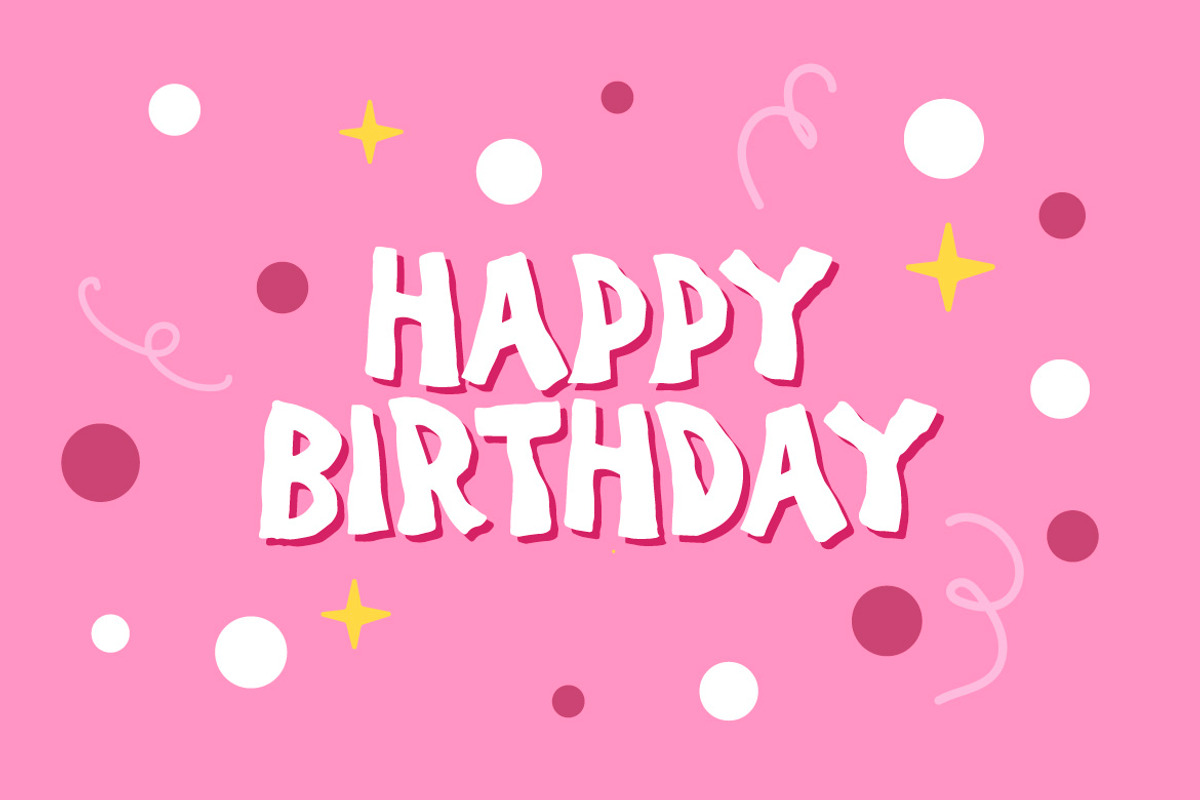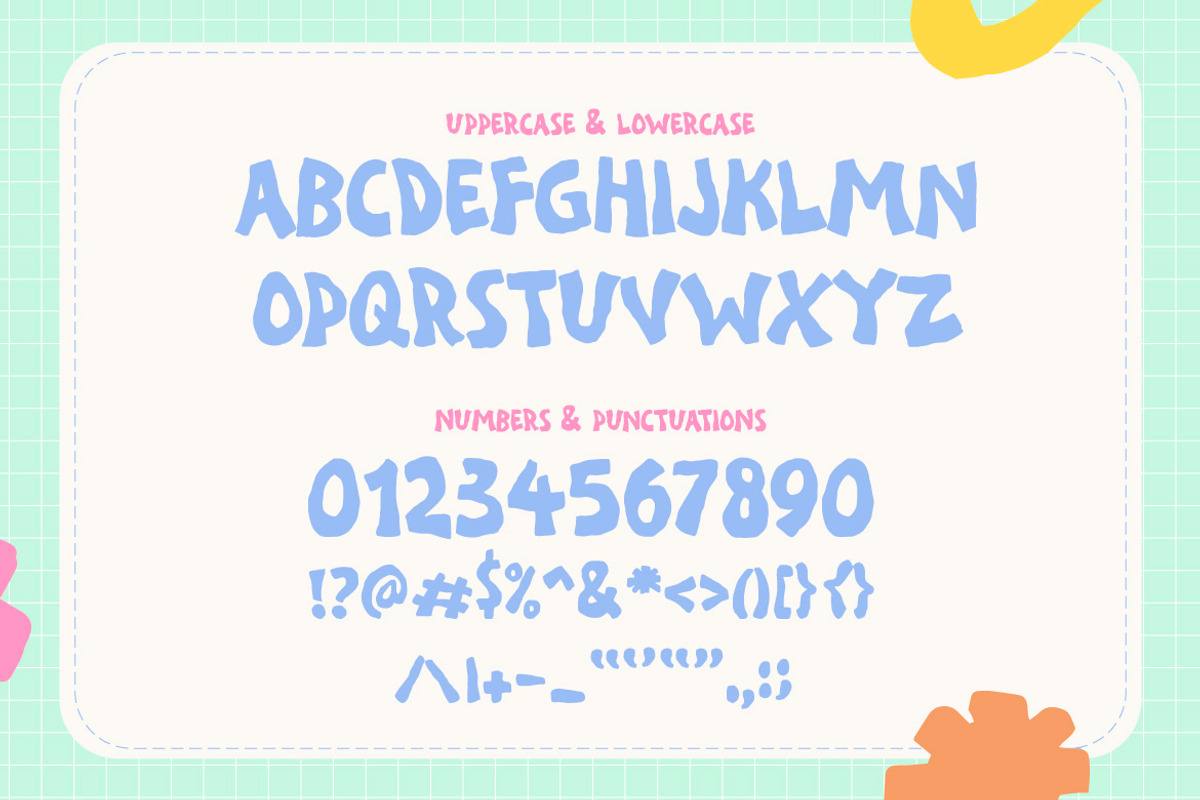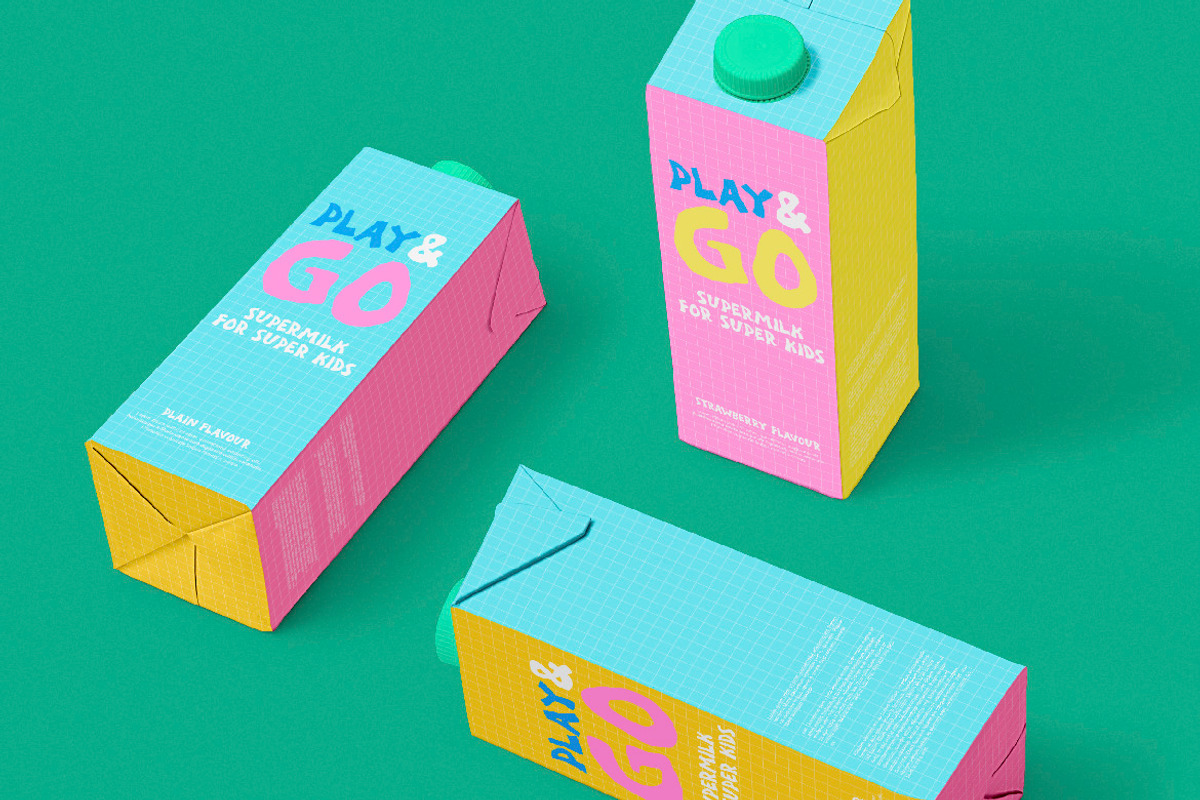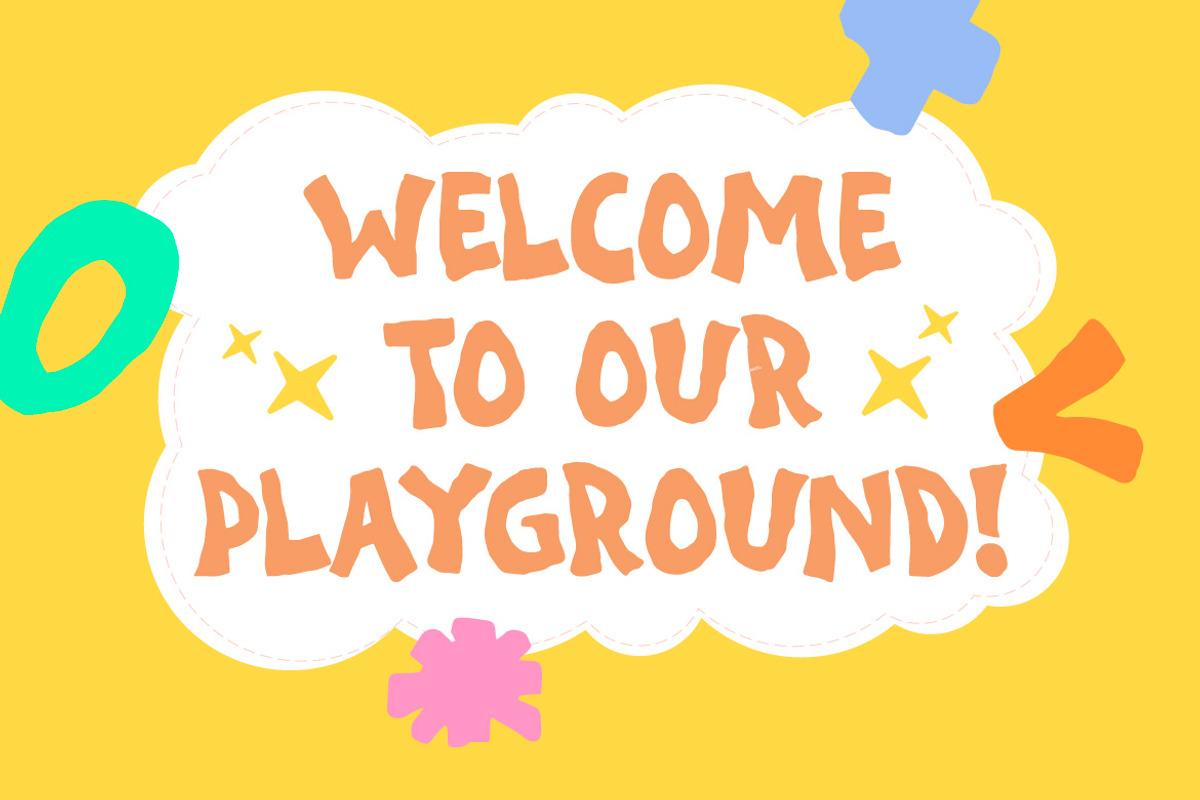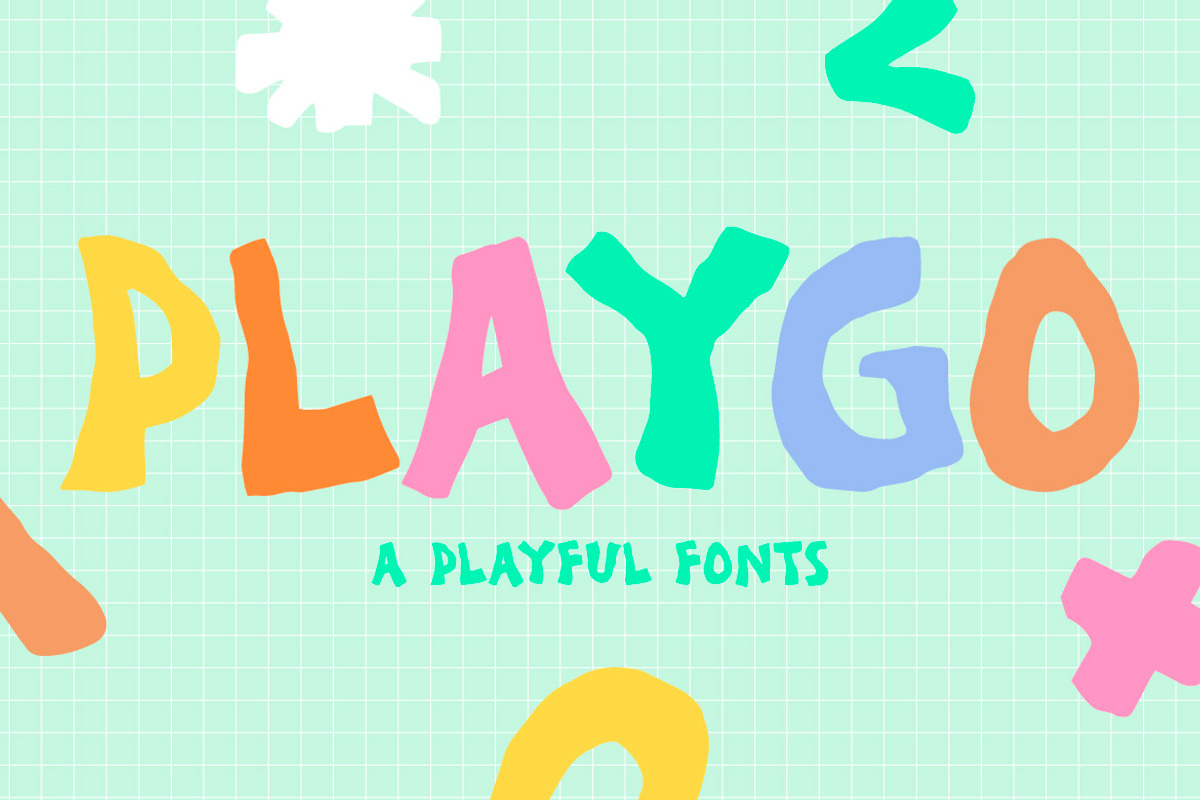
Playgo a Playful Fonts
Inspired by my daughter doodles, this font is created 100% with hand on wacom and trace it into vector and fonts. i keep the rough effect on the fonts to create unique and playful theme. Perfect for your kids theme or playful theme design, Cheers!